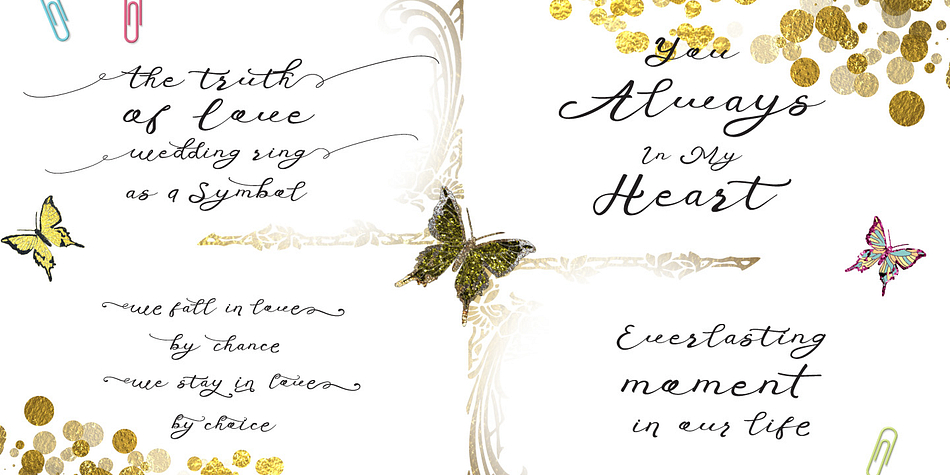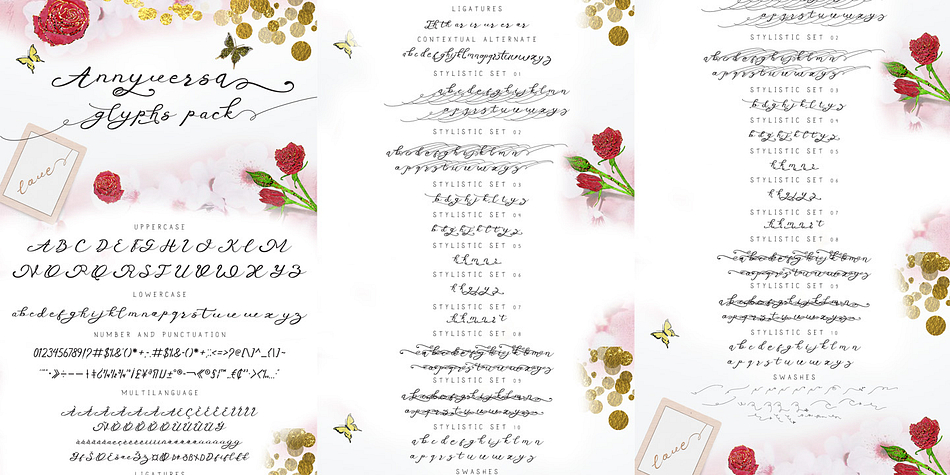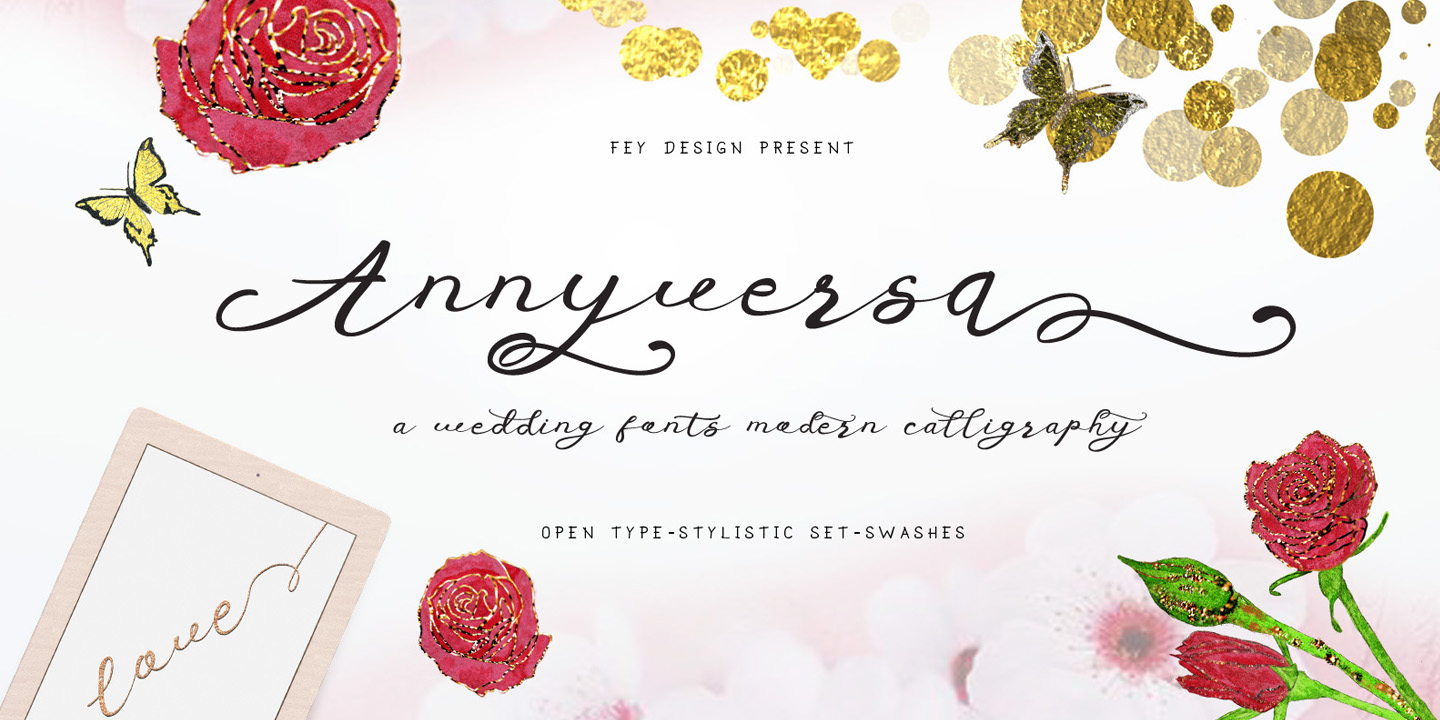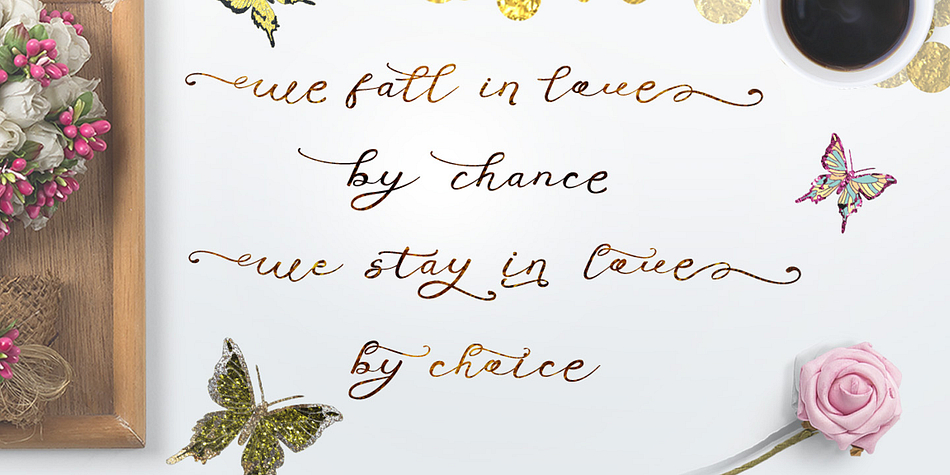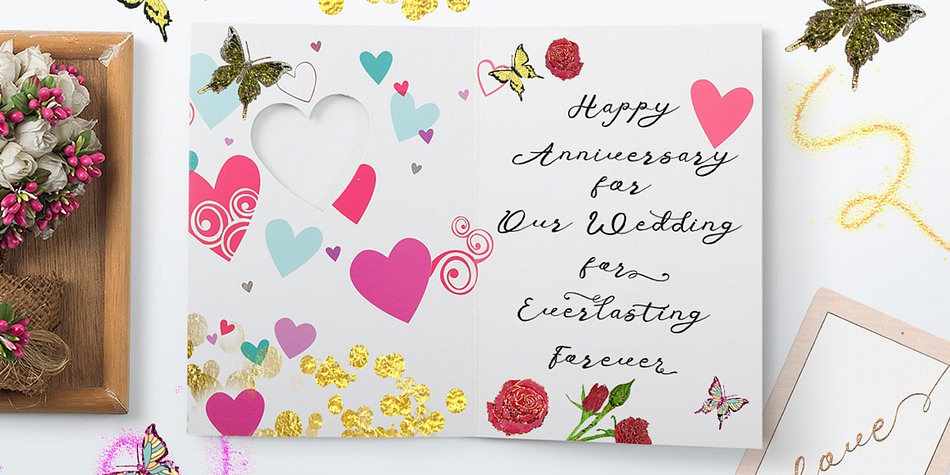
Anniversa is a dingbat, script and modern calligraphy font family. This typeface has fourteen styles and was published by feydesign.
Anniversa is a modern calligraphy wedding font. It is suitable for design, element design, weddings, events, t-shirts, logos, badges, stickers, and any other awesome work.
Features of the font include:
- Anniversa Script
- Anniversa Swashes
- Open Type Features Fonts
- Combination of alternative ligatures fonts
- Standard Ligatures, Stylistic Sets
- Multi-language support
- Modern Calligraphy Typeface
- PUA Encoded
- Uniquely styled fonts
- Easily customizable